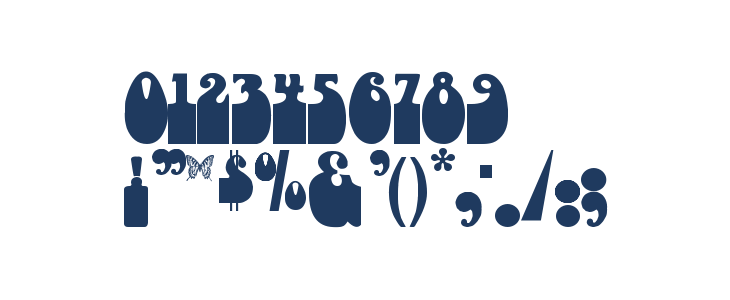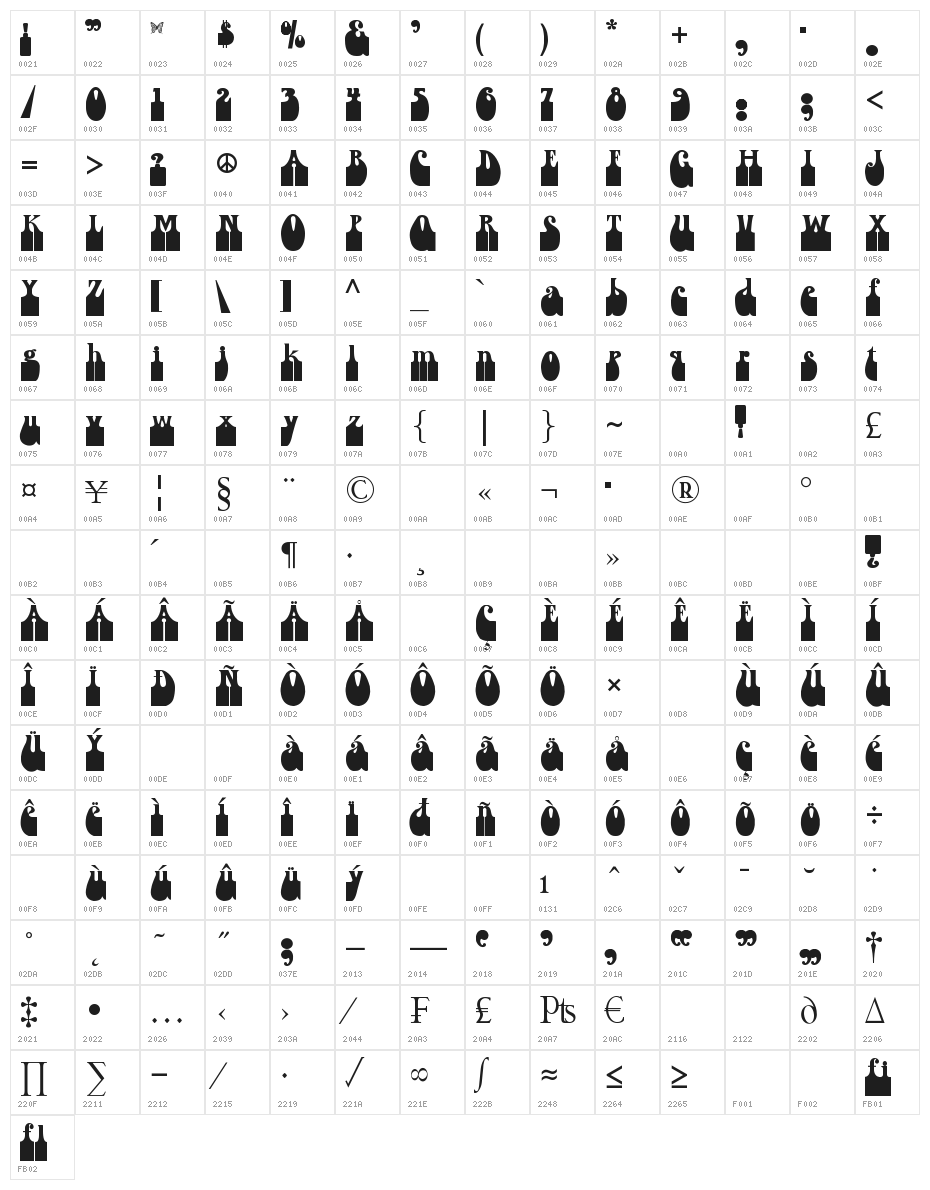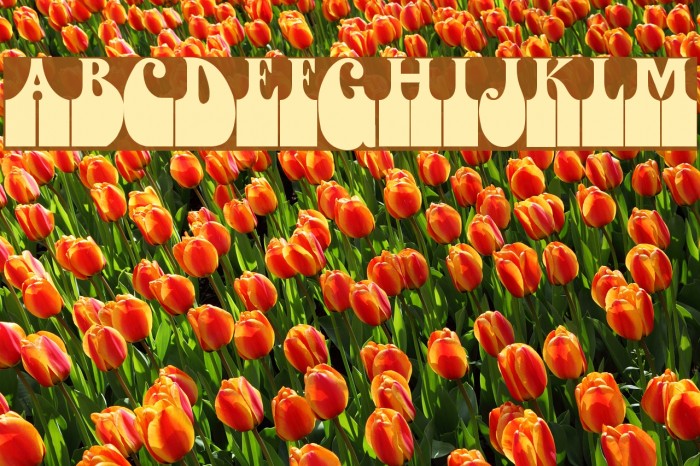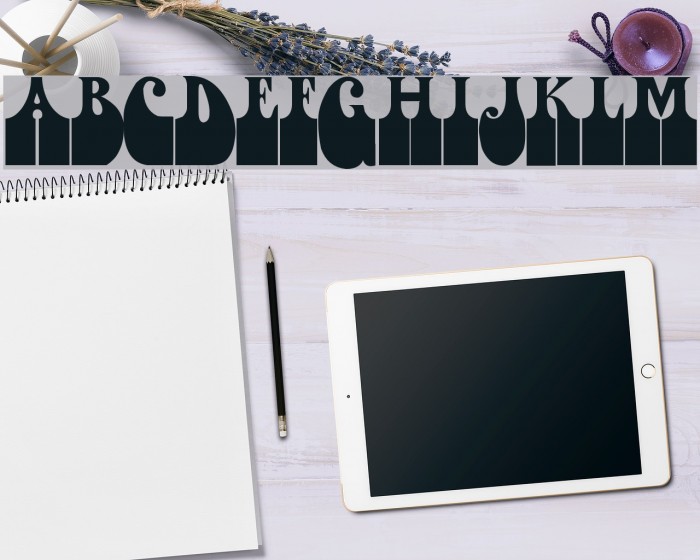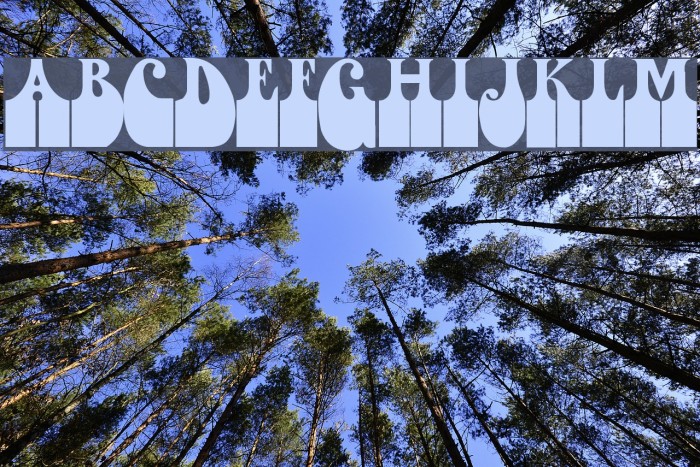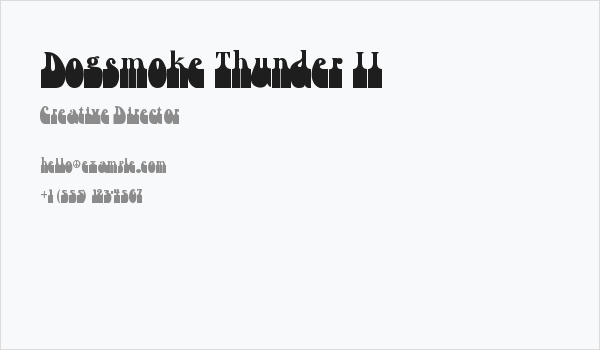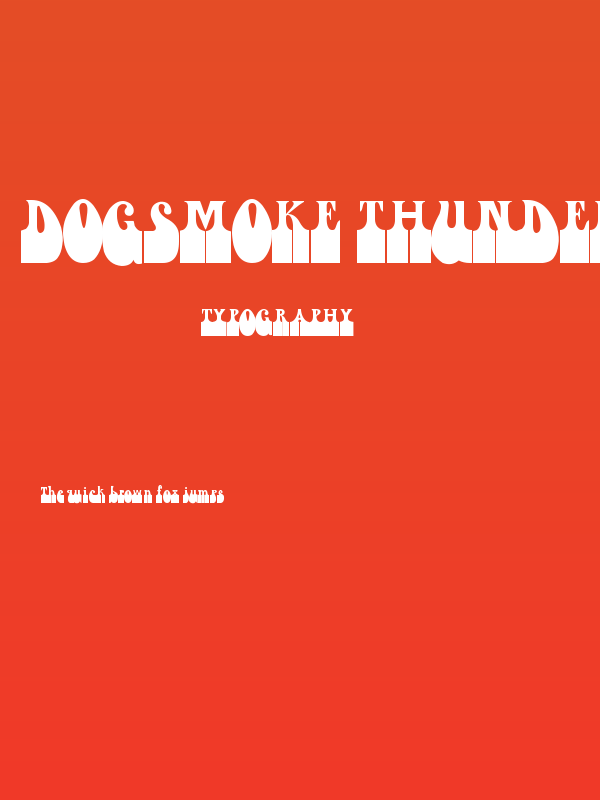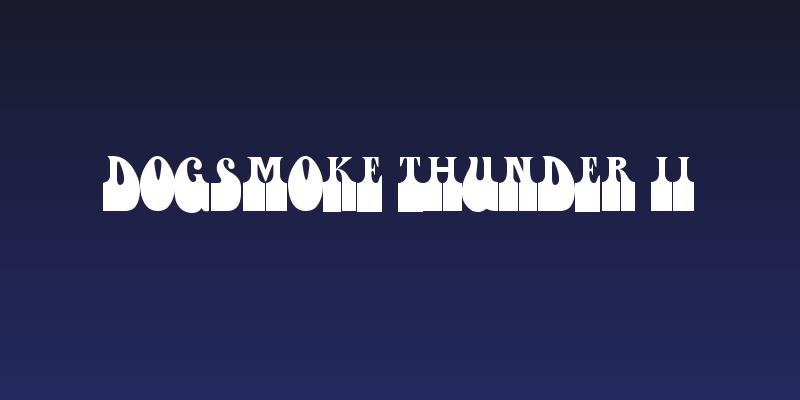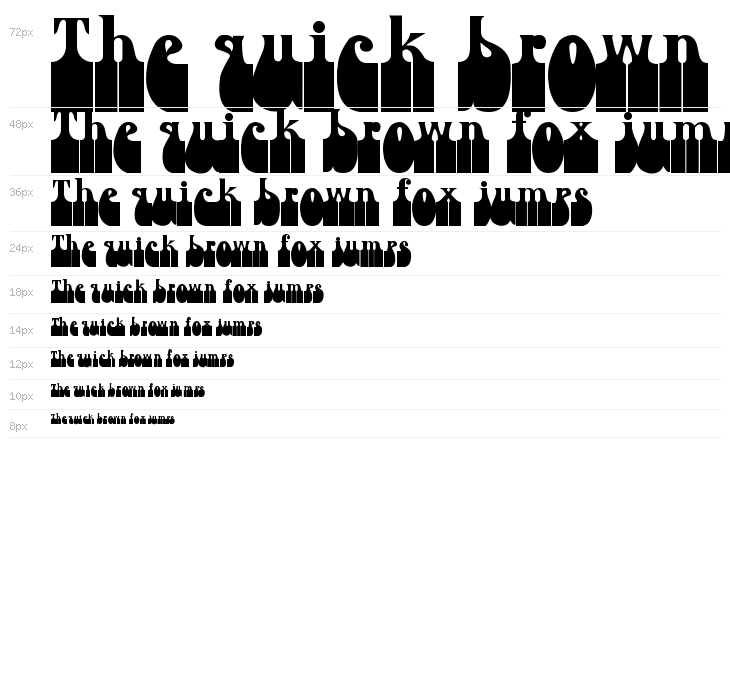
Dogsmoke Thunder II Font
Dogsmoke Thunder II Description
This font features a bold and striking design with a strong presence. The characters are wide and blocky, with a unique cut-out style that creates a sense of movement and energy. The uppercase letters are particularly imposing, with a heavy weight that commands attention. The lowercase letters maintain the same boldness, ensuring consistency throughout the typeface. Numbers and special characters are equally robust, making them suitable for a variety of design needs. The overall aesthetic is both modern and decorative, making it ideal for projects that require a bold statement.
| Proposed Projects | Ideal for posters, headlines, branding, and any design that requires a strong visual impact. |